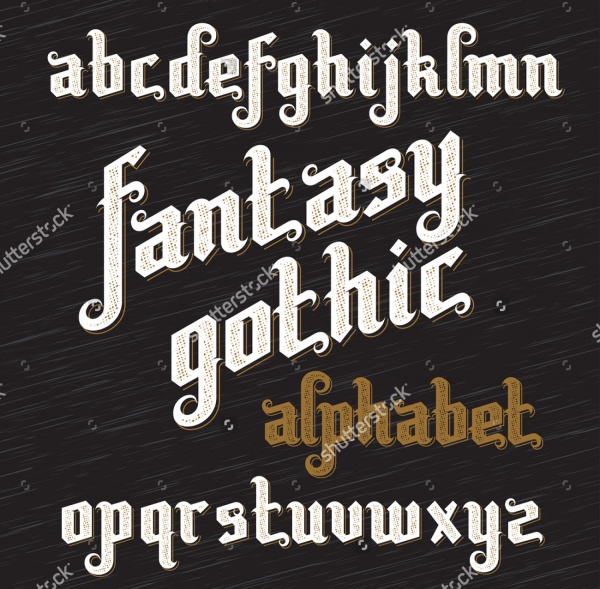
Web So, Here Are Some Of The Most Incredible Fantasy Fonts Available To Ensure That Your Target Audience, No Matter Who They Are, Is Satisfied.
The Particular Difference, In My Opinion, Is That This One Is Overall Quite Thinner And Less Of A.
Web the name of this fantasy font says it all, really. Web best premium fantasy fonts fantasy bundle fonts black magnet font arrogant serif fantasy font mini on fantasy bundle 7 vintage gothic fonts bundle. Web 25+ best fantasy fonts for fantastical designs fantasya hand drawn fantasy font king crayon fantasy font solaire rough fantasy bons geno typeface.